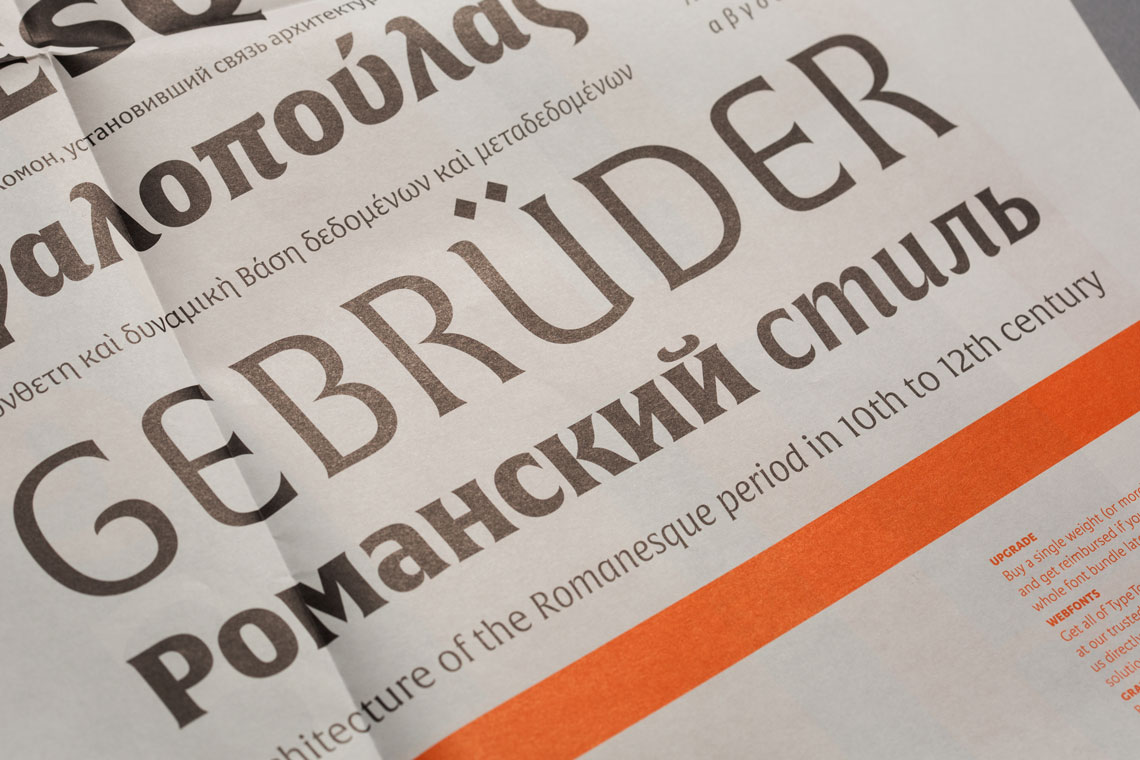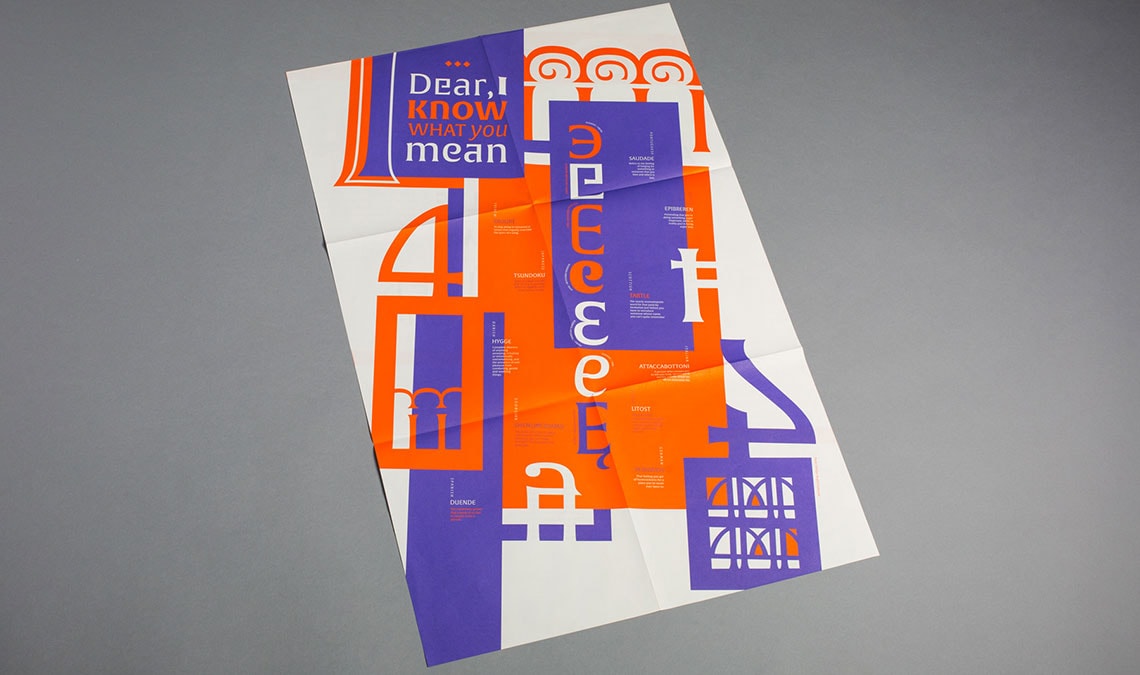
Alverata Poster
Talented Turkish designer Begüm Bahçecik in collaboration with TypeTogether designed this beautiful poster featuring Alverata, the successful award-winning typeface designed by Gerard Unger, a twenty-first century typeface inspired by the shapes of Romanesque capitals.